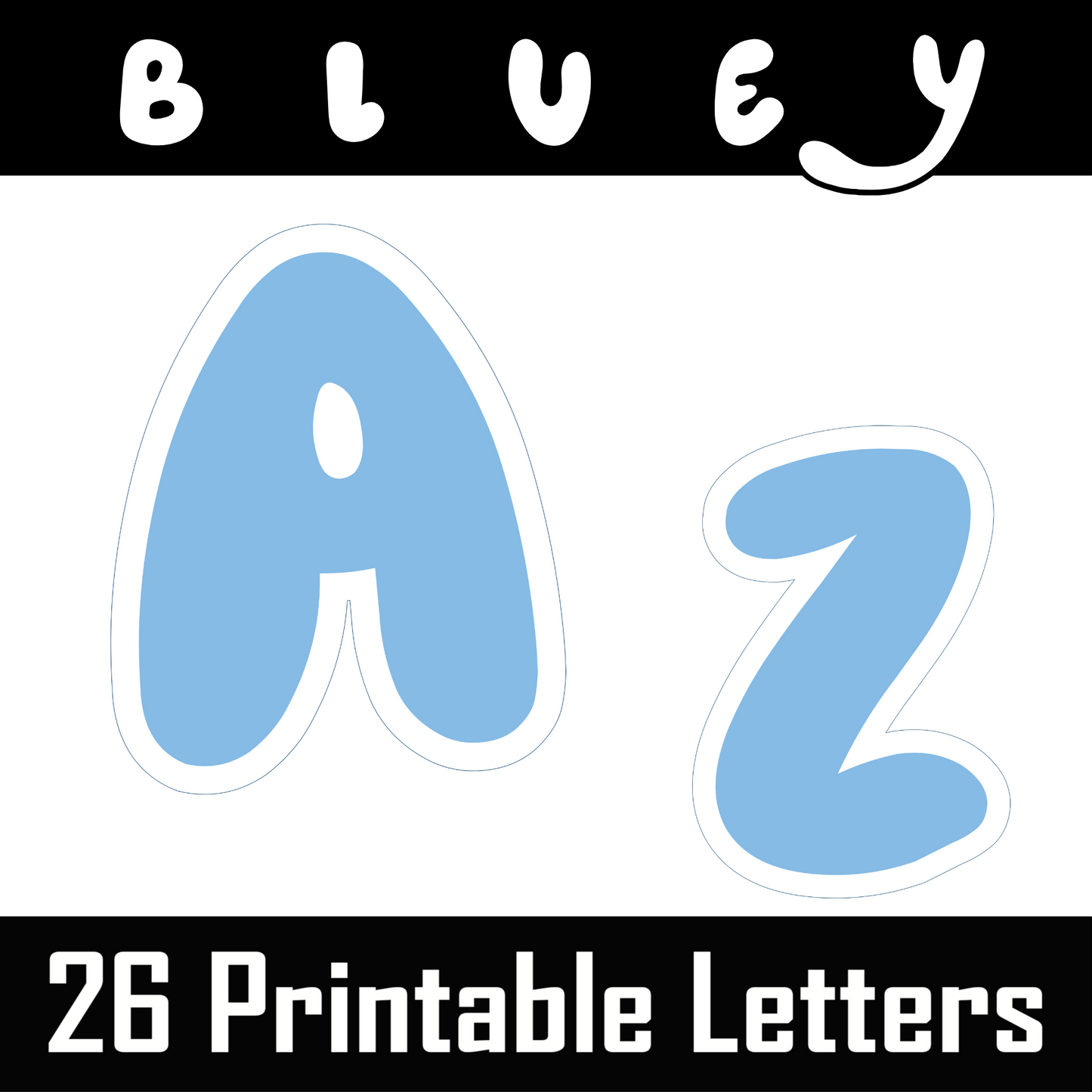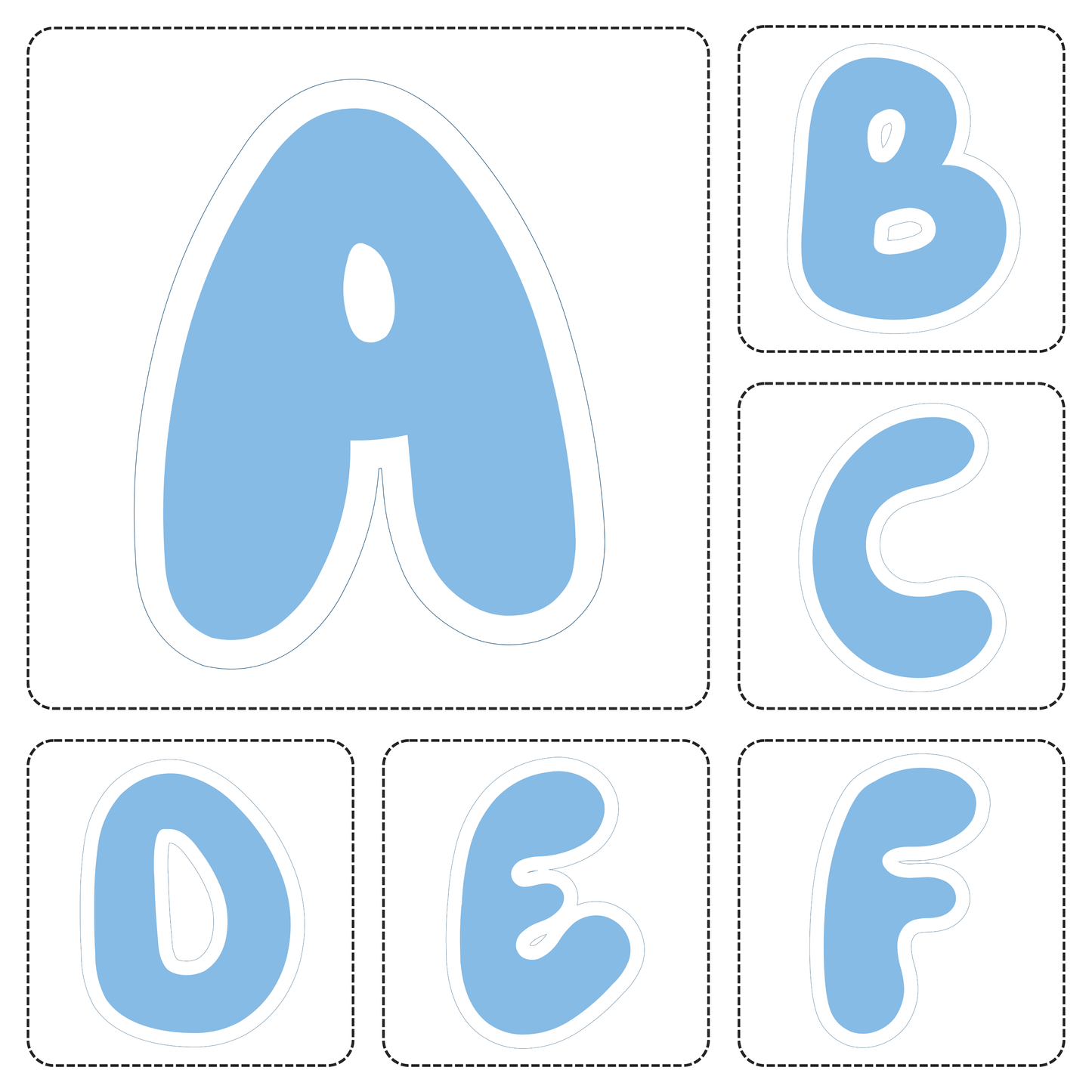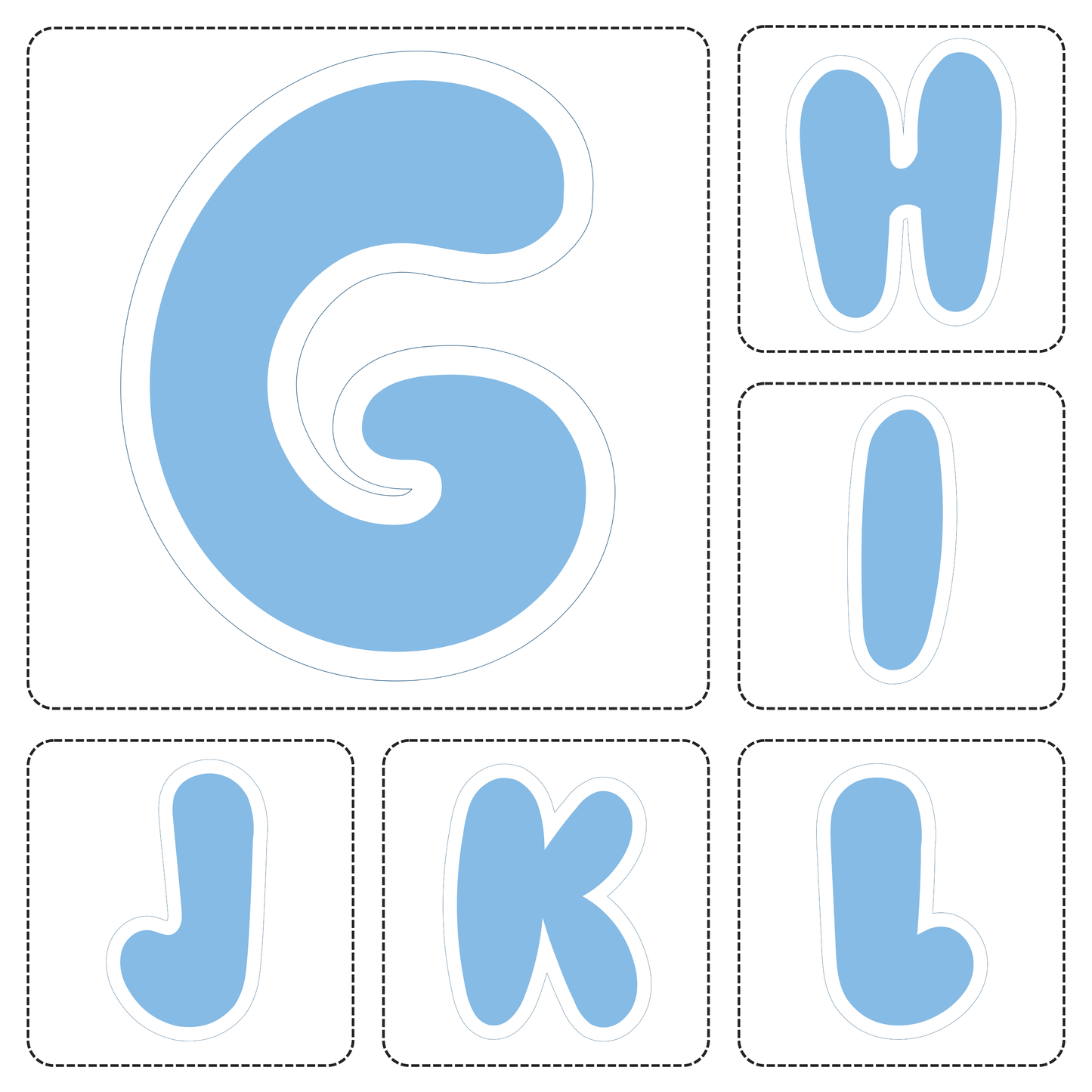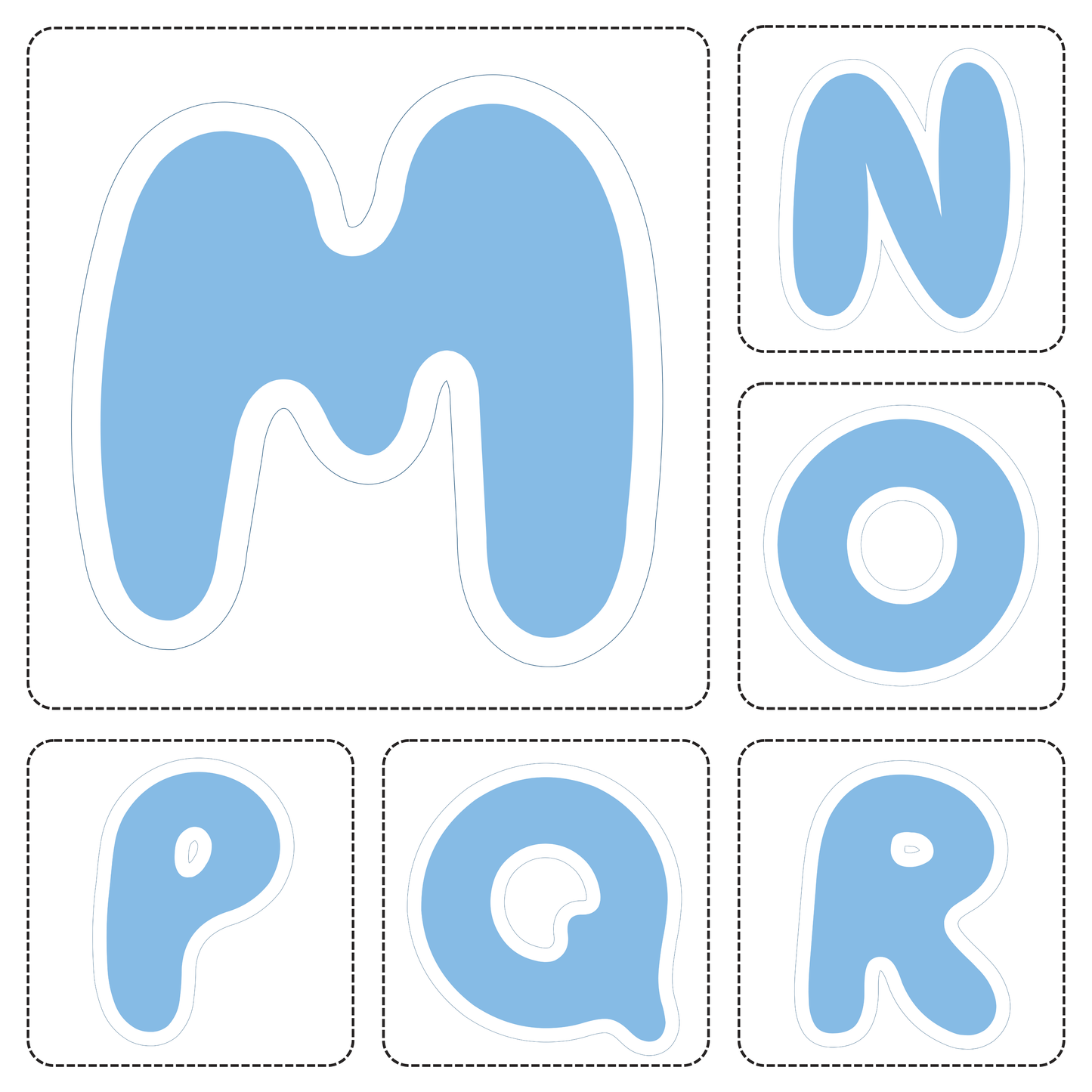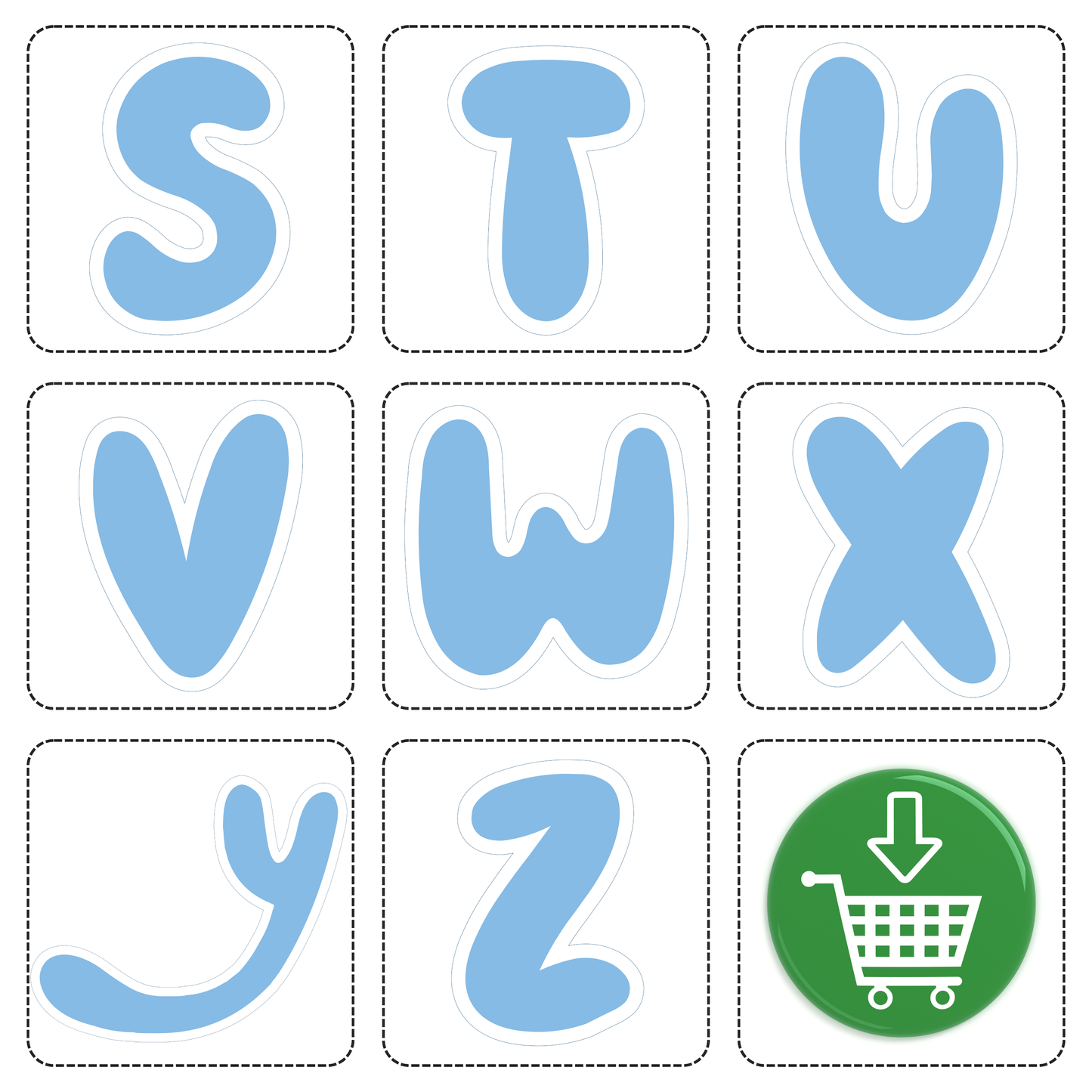
Bluey Alphabet Letters A–Z
Make learning fun with this full set of Bluey-style alphabet letters! Each letter from A to Z is designed in a bubbly, light blue cartoon font with white outlines—perfect for preschool classrooms, birthday banners, homeschool printables, and themed crafts inspired by the beloved Bluey universe.
🧸 Perfect For
• Bluey-themed birthday parties
• Preschool classroom decor
• Alphabet flashcards
• Scrapbooking & DIY crafts
• Homeschool activities
• Early learning worksheets